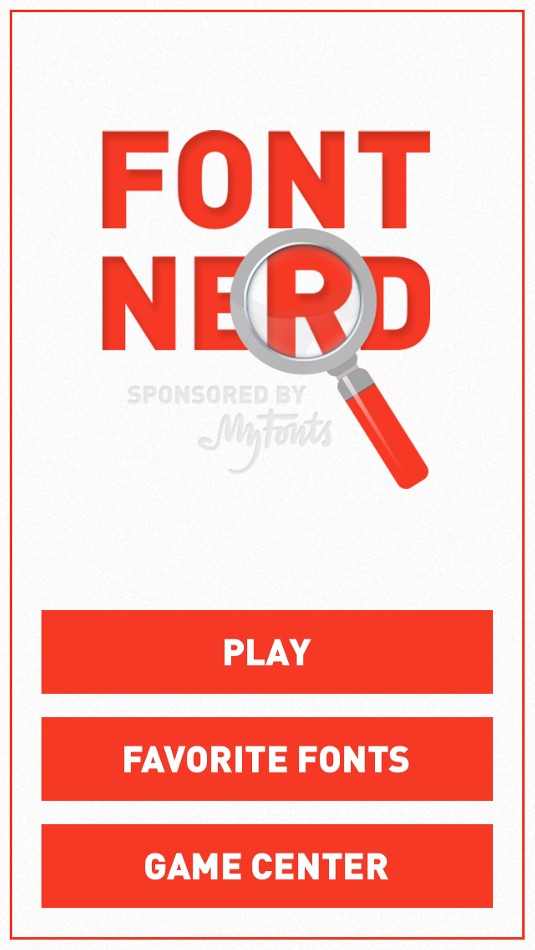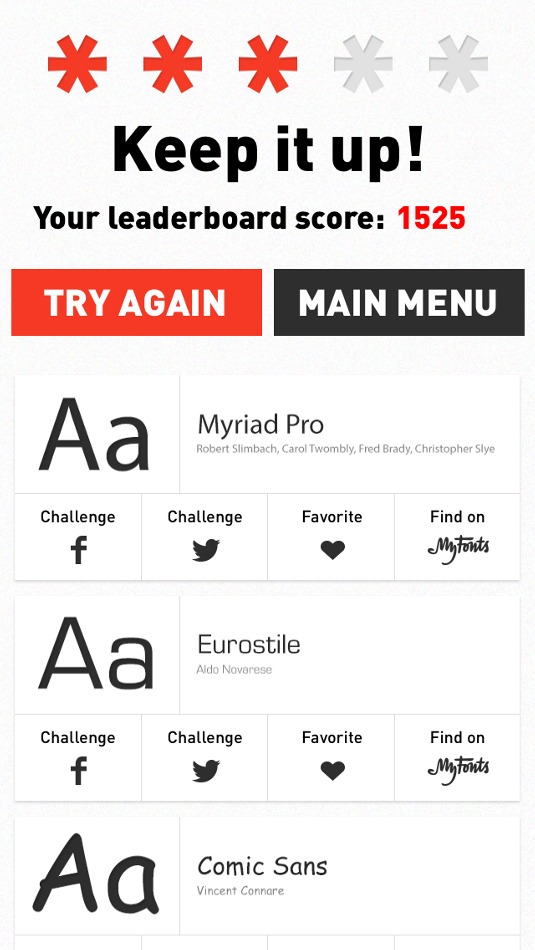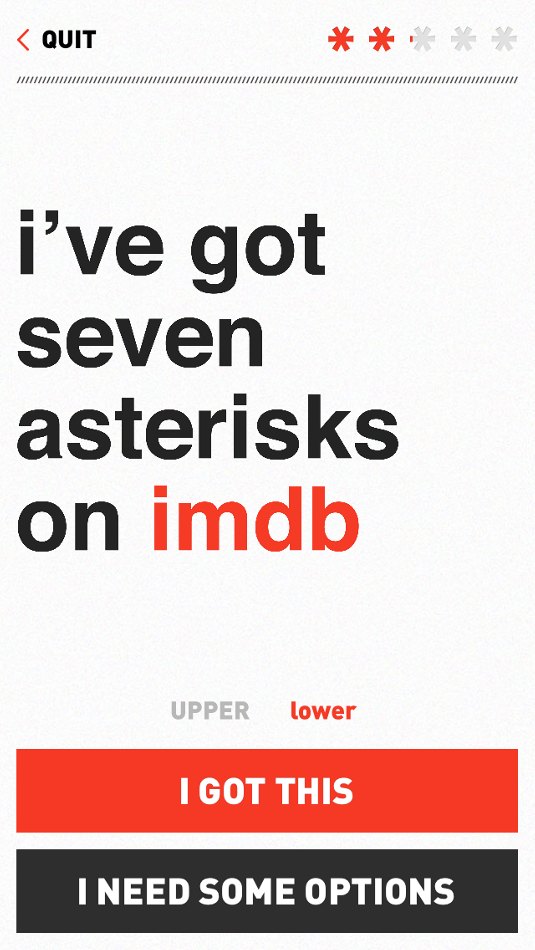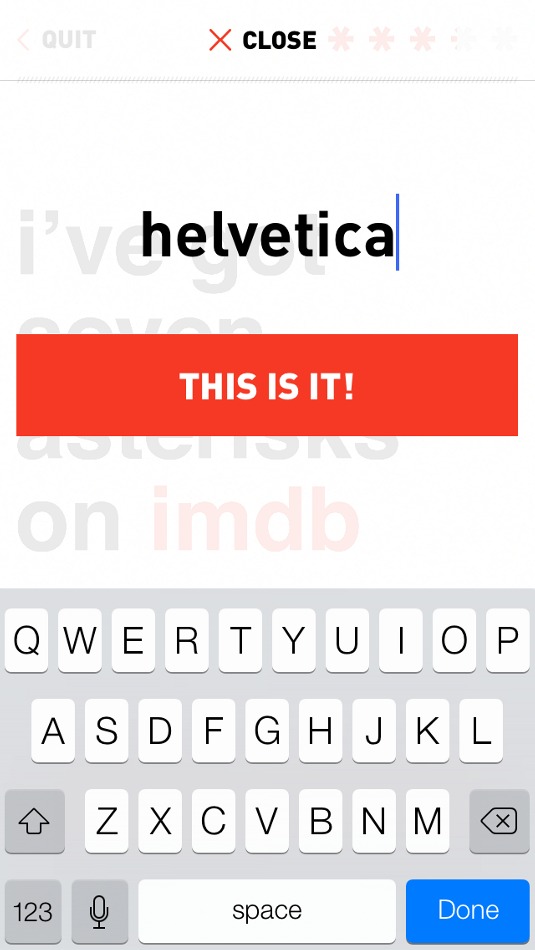
Are you a font nerd?
Do you know your Arial from your Helvetica? Test your type knowledge with this challenging game.
Even if you're not a typographer, once you know what to look for it's fairly easy to tell Arial from Helvetica: if the ends of the strokes on the letterforms cut off at a slight angle, you're probably looking at Arial, whereas if they're perfectly vertical or horizontal then it's almost certainly Helvetica. You're welcome; at best this useful information will help you score slightly better in the very first round of Font Nerd.
It's a font identification game sponsored by MyFonts.com that'll probably show you that you don't know half as much typography as you thought you did. It shows you a sentence in a particular font (you can switch between upper- and lower-case letterforms) and simply asks you what the font in question is. If you're feeling confident you can opt to type in the name; otherwise you can play it safe and score fewer points by taking the multiple choice option.
Naturally it contains links through to the MyFonts.com site so that if you see a font that you like the look of, you can easily add it to your collection. It's as great little exposure piece for MyFonts, and while it's basic it's definitely capable of expanding your typographical knowledge.